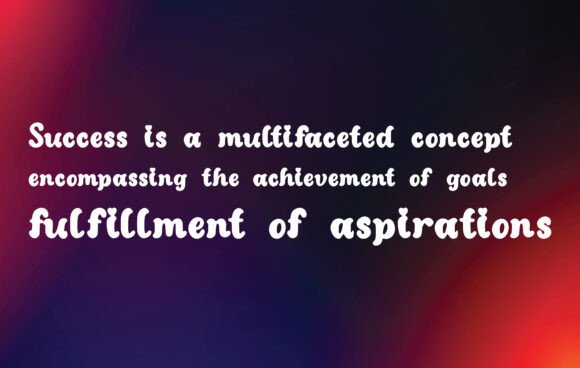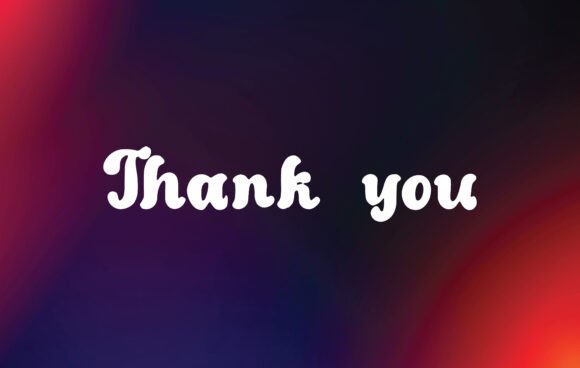
Introduction to Malva Font
Malva is a lovely and beautiful handwritten font.
Key Features of Malva Font
Why Choose Malva Font?
Malva Font offers exceptional quality and versatility, making it a valuable addition to your design toolkit. Whether you’re creating for personal projects or commercial use, Malva Font delivers professional results.